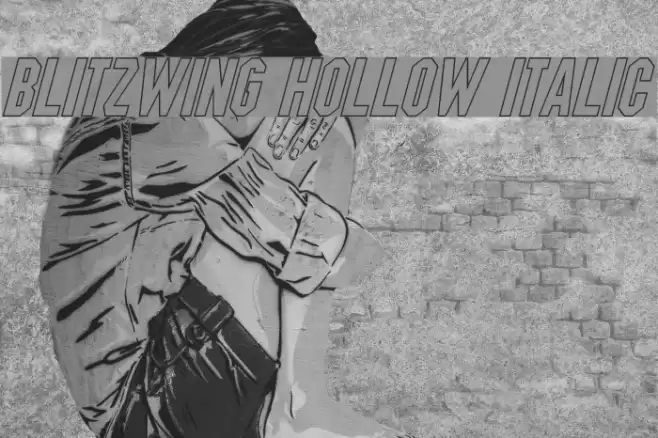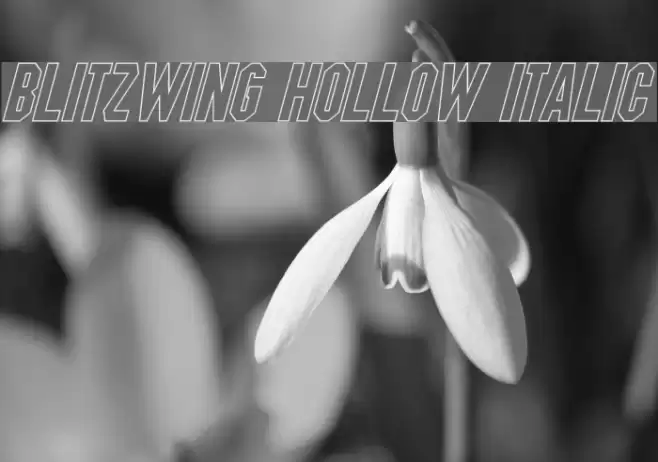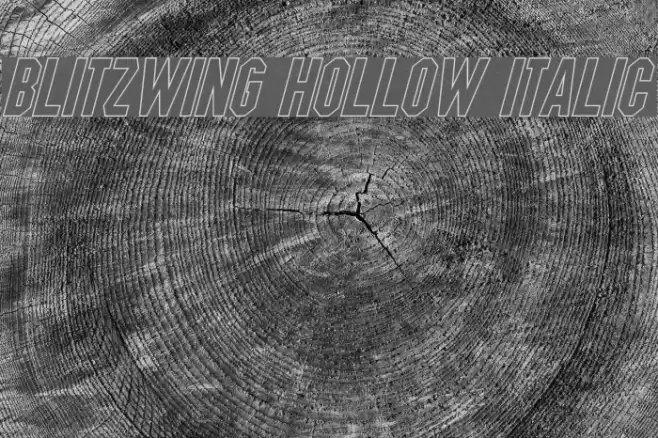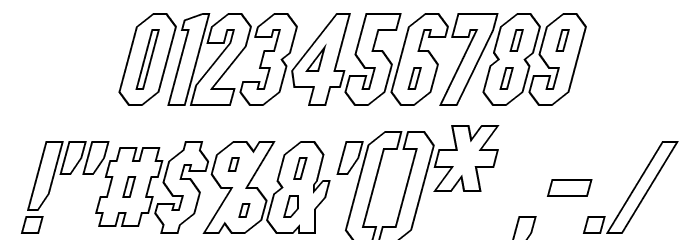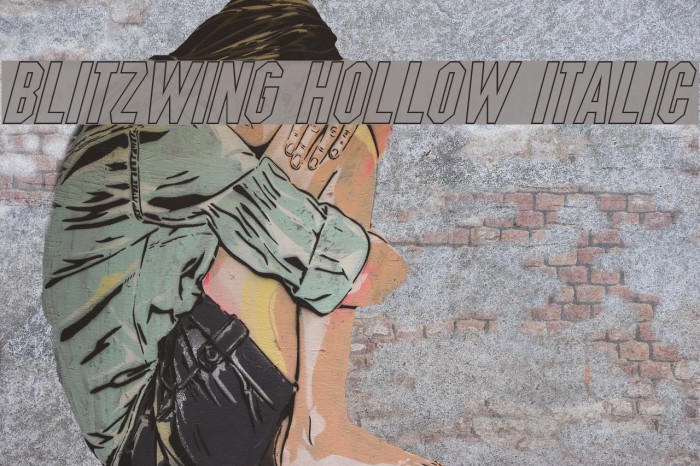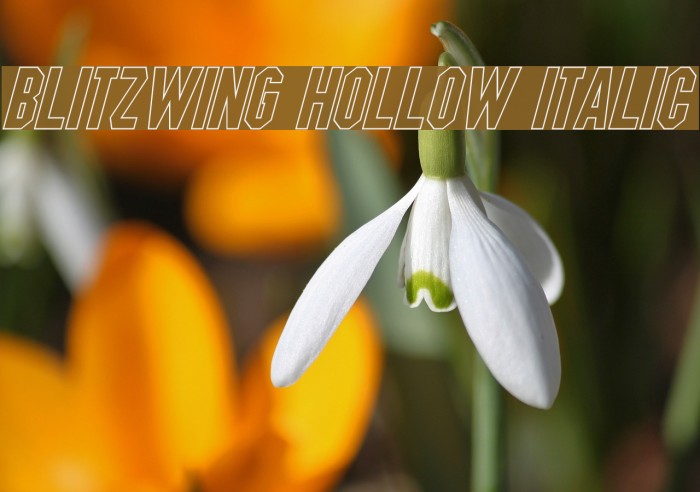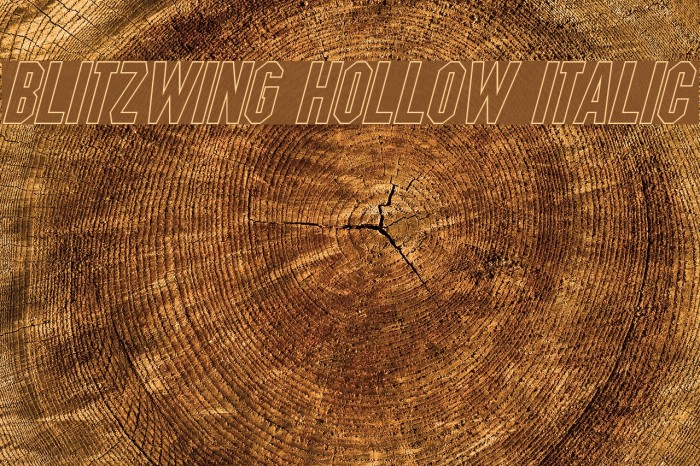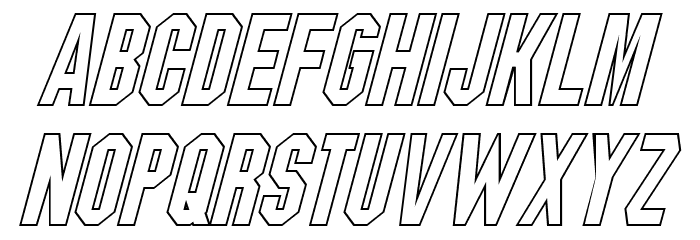
Blitzwing Hollow Italic
This font features a bold, hollow design with a distinct italic slant, giving it a dynamic and energetic appearance. The uppercase and lowercase letters are designed with sharp angles and clean lines, creating a sense of movement and urgency. The numbers and special characters maintain this cohesive style, ensuring versatility across various applications. The hollow nature of the font adds a unique dimension, making it stand out in both digital and print media. Its boldness and angularity make it suitable for attention-grabbing headlines and titles.
A bold, hollow, italic font with sharp angles and dynamic style.
- Proposed Projects: Ideal for sports branding, dynamic posters, video game titles, and edgy graphic designs.